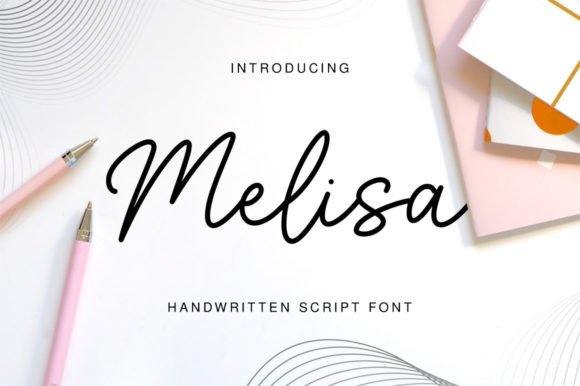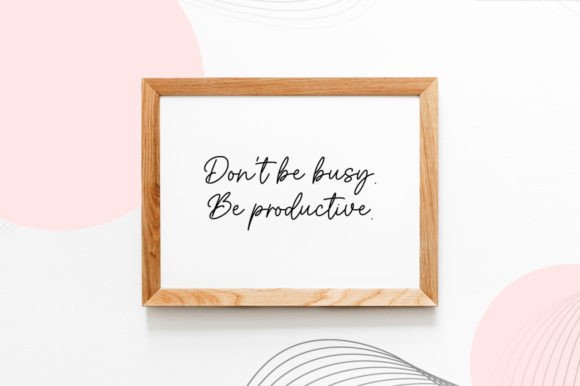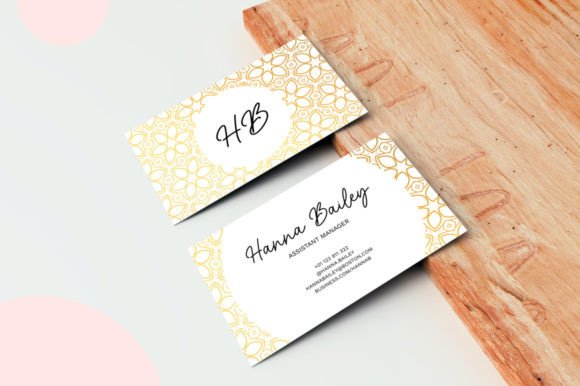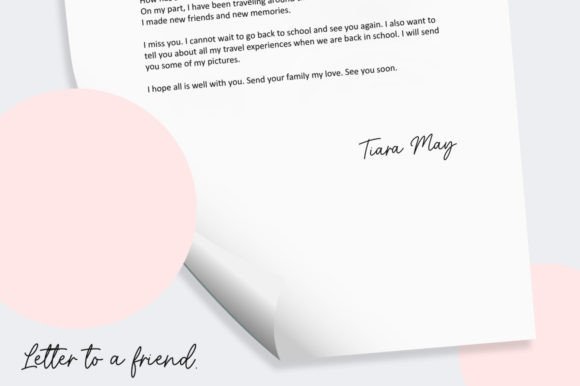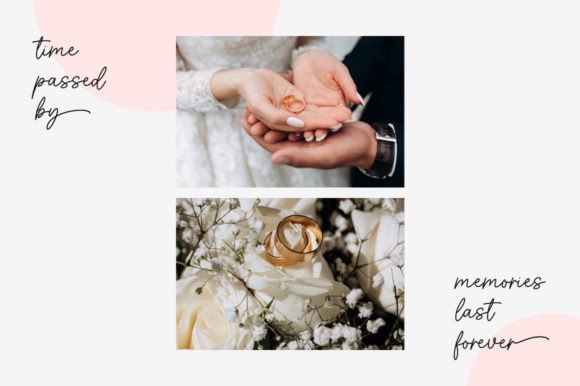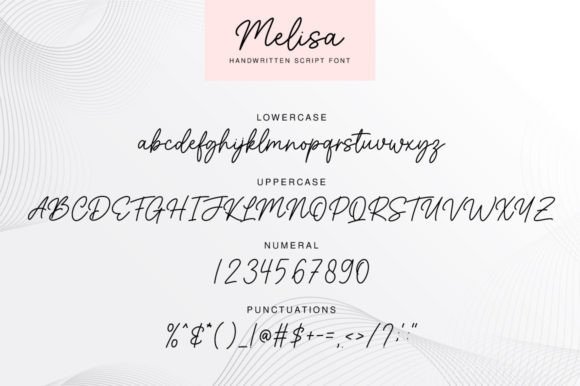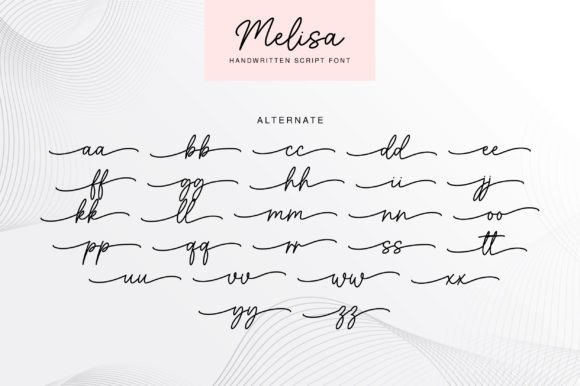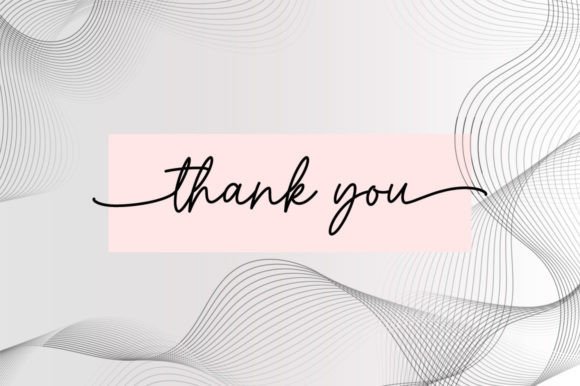
Melisa Font
About Melisa Font
“Melisa” is a stunning and well-balanced script font that embodies a fresh and contemporary style. It is characterized by its smooth curves, making it a perfect choice for fashion branding and editorial designs. Additionally, this font is PUA encoded, allowing you to easily access all its glyphs and swashes for added creative flexibility.
In the world of fashion branding, “Melisa” introduces a distinctive and stylish script that can effectively represent your brand’s identity. Its graceful and meticulously crafted characters add a touch of sophistication and modernity to your brand, helping it stand out in the competitive fashion industry.
Editorial designs benefit from the elegant and new-style aesthetics of “Melisa.” Whether it’s used in magazine layouts, fashion articles, or any editorial project, this font elevates the overall visual appeal and adds a sense of contemporary elegance to the content.
With its PUA encoding, “Melisa” offers an extensive range of glyphs and swashes that can be easily accessed. This feature enhances your creative freedom, allowing you to customize and tailor your designs to perfection.
In summary, “Melisa” is a beautiful and contemporary script font that excels in conveying elegance and modernity. Its versatility, along with PUA encoding for easy glyph and swash access, makes it an invaluable asset for fashion brands, editorial designers, and anyone seeking to create visually captivating and stylish designs.